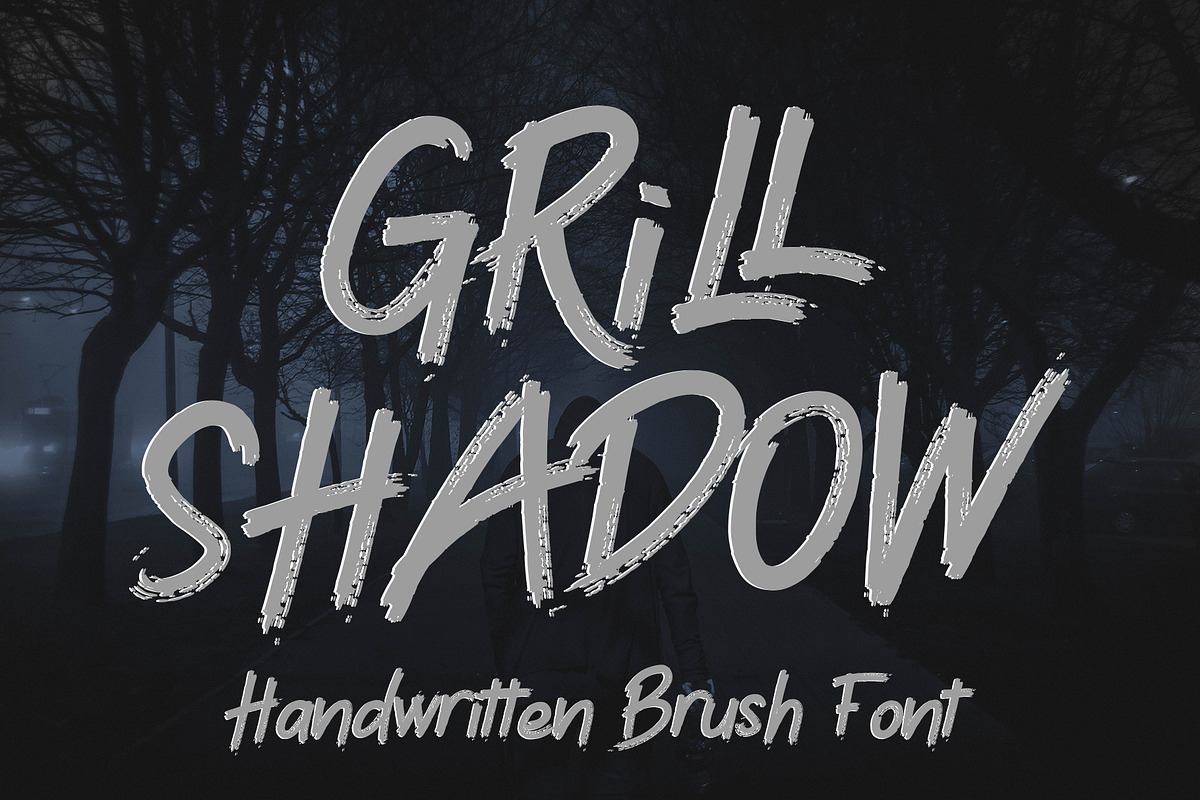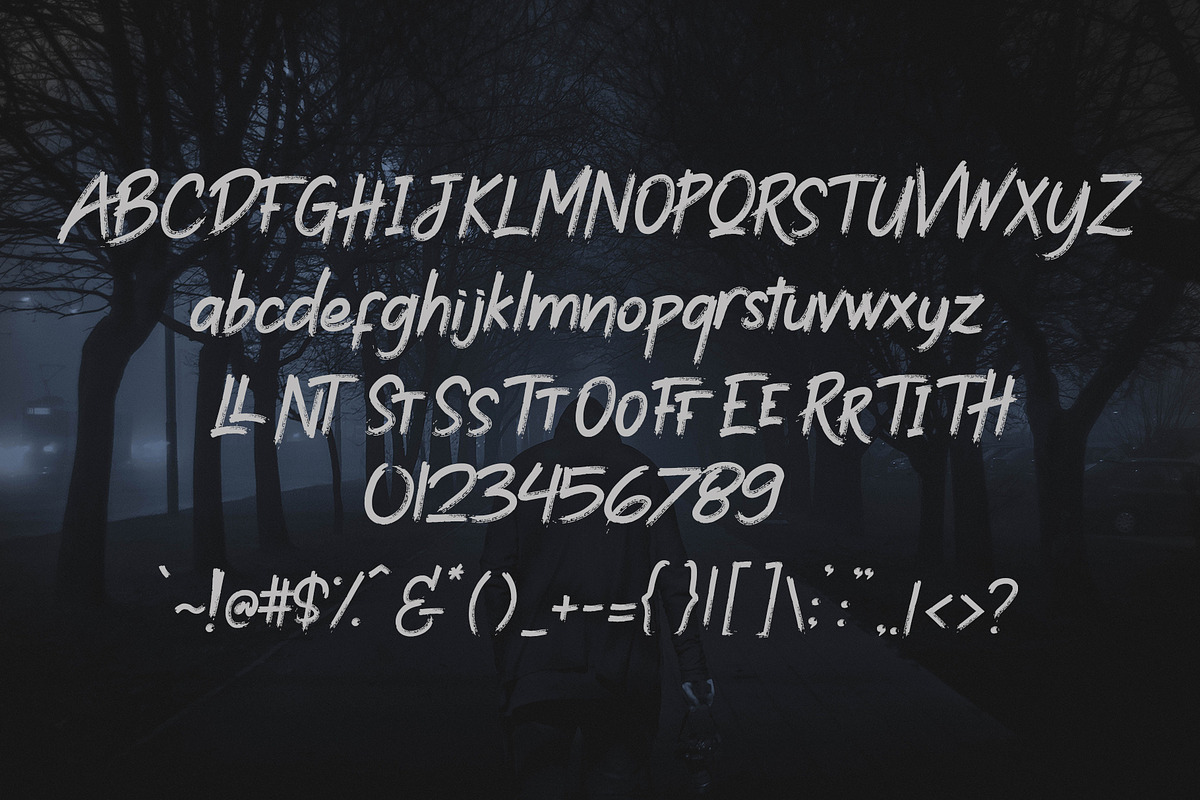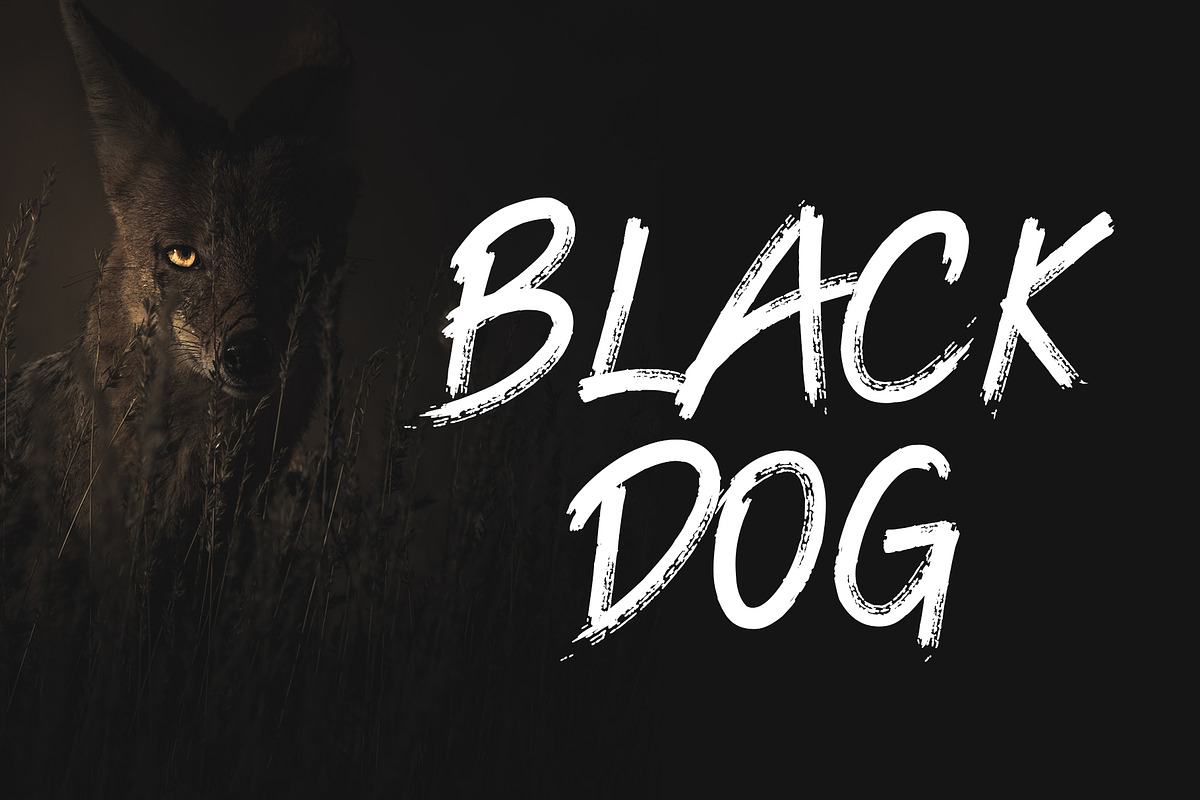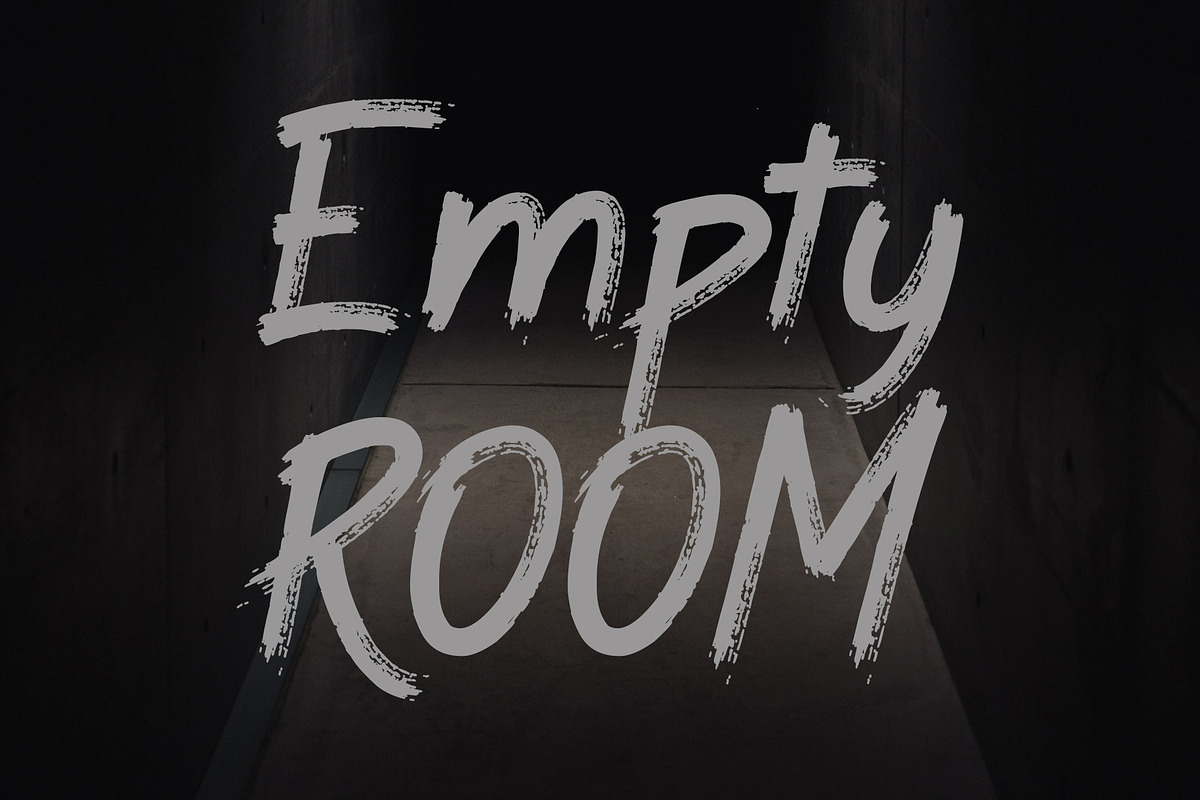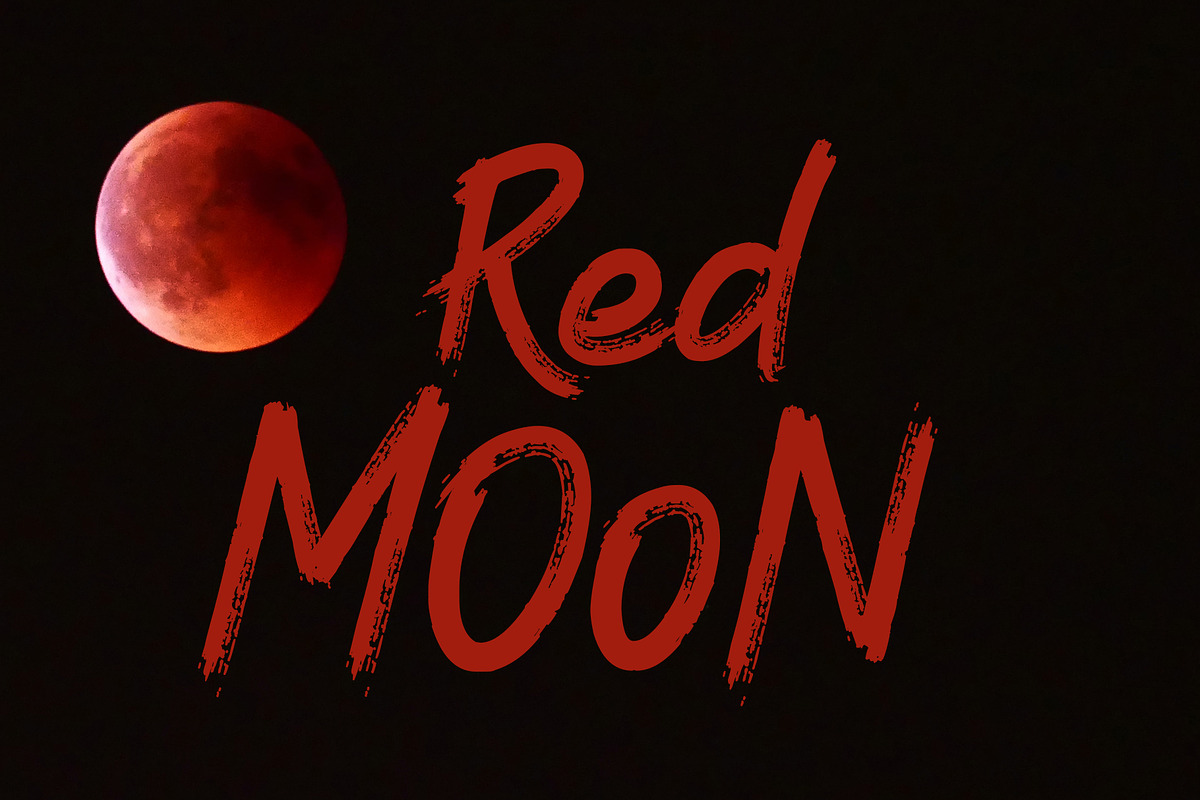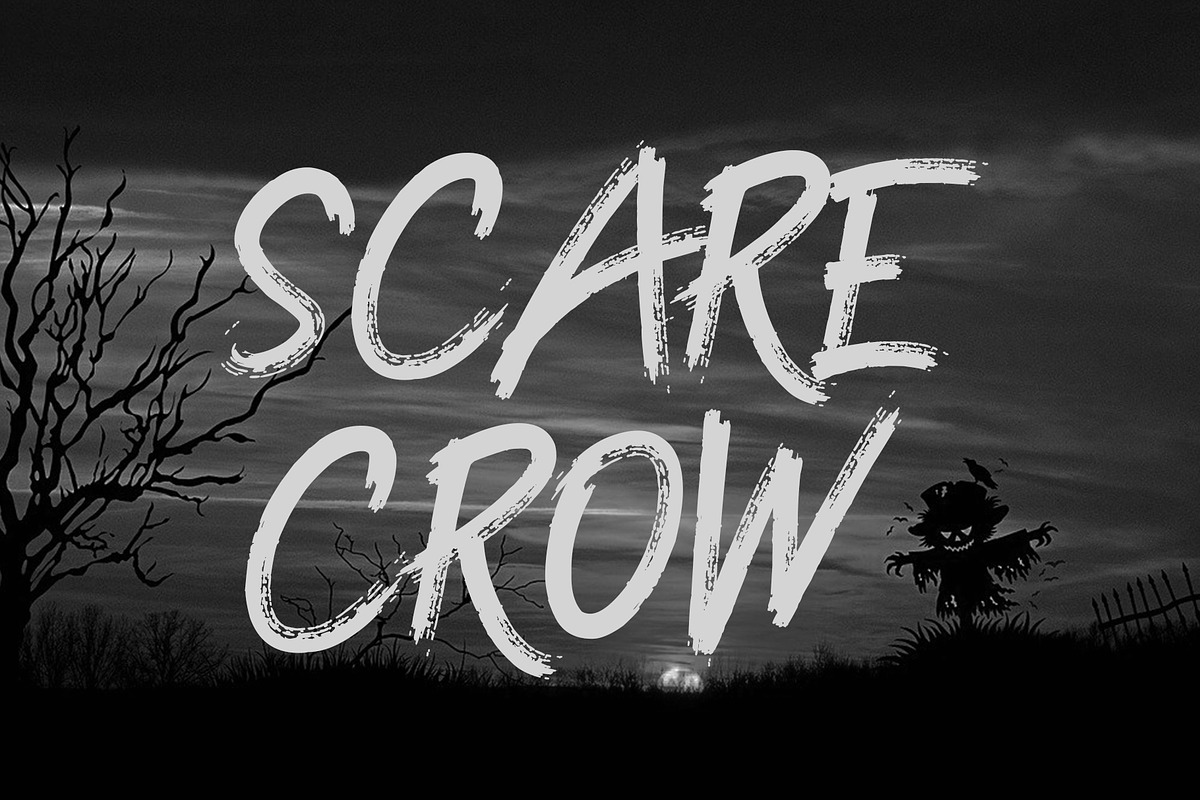
Grill Shadow - Brush Font
Grill Shadow is a creepy brush font with rough texture. Make your design more scareful !!
Grill Shadow - Brush Font by Dm Studio fits naturally into Branding, posters, packaging, typography.